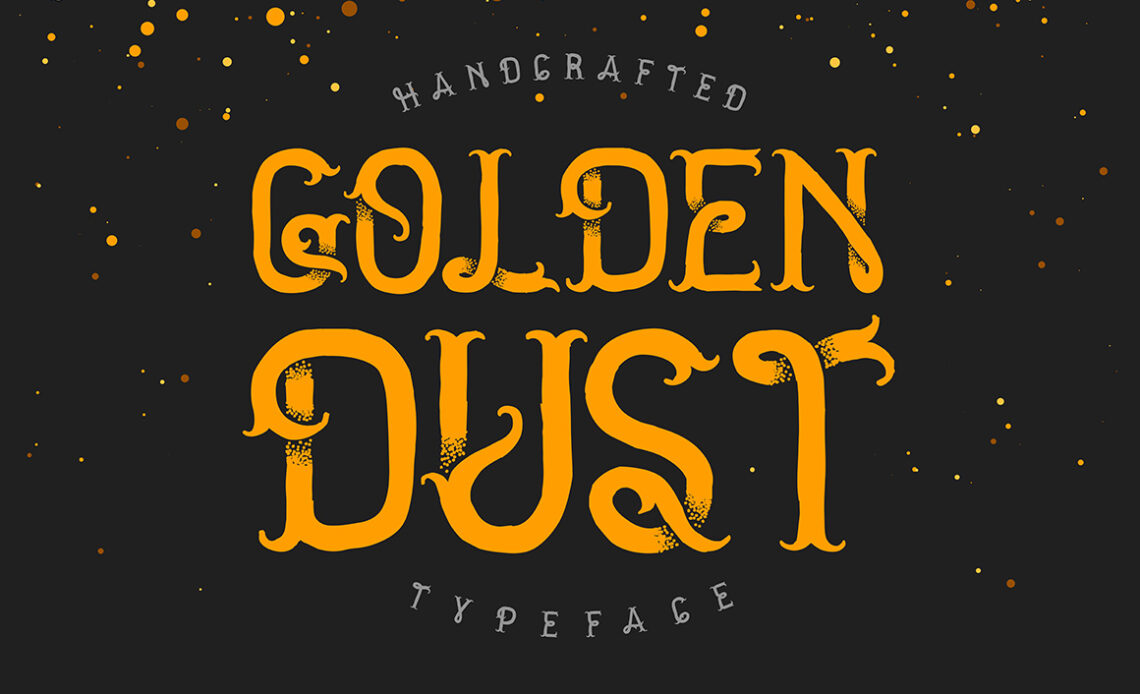
Introducing Golden Dust Font - A Journey Through Sparkling Elegance
In the realm of typography, where letters dance and words come alive, there exists a font that captures the essence of golden dreams and shimmering stardust - Golden Dust. This display font, crafted by the visionary Gleb Guralnyk, is a testament to the power of intricate details and enchanting aesthetics.
Golden Dust is not just a font; it's an experience that transports you to a world of luxury and sophistication. Its meticulously hand-created strokes evoke a sense of artisanal craftsmanship, while its shimmering golden accents add a touch of ethereal beauty. Each letter is adorned with delicate flourishes and subtle curves, reminiscent of intricate gold jewelry or the sparkling dew drops on a sun-kissed morning.
With Golden Dust, you can weave tales of elegance, magic, and timeless allure. Its versatile nature makes it the perfect choice for a wide range of creative projects, from wedding invitations and branding materials to social media posts and website designs. Let your imagination soar as you explore the endless possibilities that await you with this captivating font.
Imagine your words adorned with Golden Dust, exuding an aura of luxury and sophistication that commands attention. Your designs will radiate a sense of exclusivity and refinement, leaving an unforgettable impression on your audience. From elegant logos that shimmer with golden brilliance to captivating social media posts that sparkle with charm, Golden Dust will transform your creative vision into a masterpiece.
Join the ranks of discerning designers and creatives who have embraced the magic of Golden Dust. Let your imagination run wild as you explore the endless possibilities that await you with this extraordinary font. Indulge in the beauty of Golden Dust and elevate your designs to new heights of elegance and sophistication.